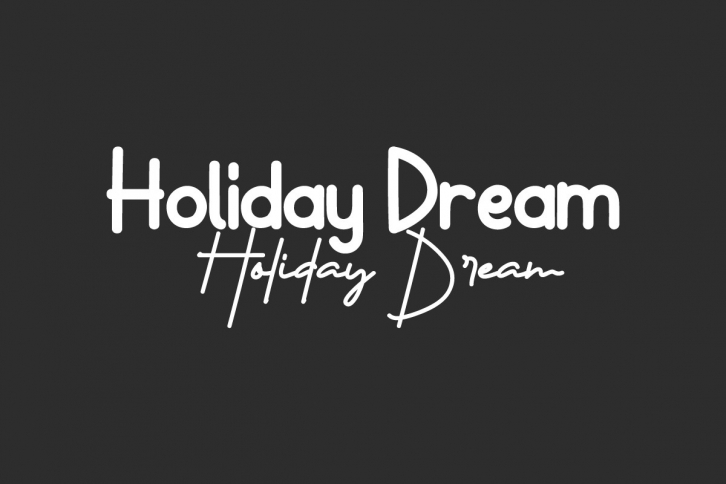
Holiday Dream is a delicate and fashionable duo font (script and sans serif). It is perfect for any branding project such as logos, t-shirt printing, creative products, and more. This font is PUA encoded which means you can access all of the glyphs and swashes with ease!